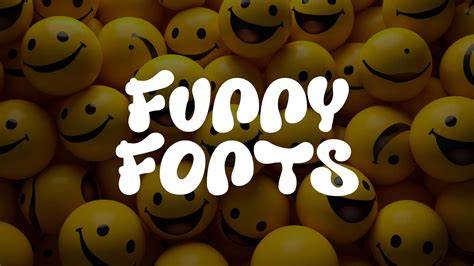
Funfonts: A Style Revolution For 2023
It's 2023, and the world of typography is a different place. Gone are the days when the same old typefaces ruled the web. Now, thanks to a new revolution in fonts, everyone from web designers to casual bloggers have access to a range of exciting and creative typefaces. We're talking about funfonts – a unique style of typeface that has been gaining in popularity over the past few years.
Funfonts are basically fonts that have been designed with a specific purpose in mind – to make text look fun. This could mean bright, colourful fonts, or more unusual shapes and sizes. Funfonts also often feature more playful lettering, such as hand-drawn lettering and script. They are a great way to add a bit of personality to any website or project.
The Benefits of Funfonts
Of course, the main advantage of using funfonts is that they are eye-catching and attractive. They can instantly make a website or project look more interesting and engaging. They can also help to draw attention to important text, or make it easier to read. Funfonts are also great for creating a sense of character and individuality.
Another major benefit of funfonts is that they are often much easier to use than traditional typefaces. They are often easier to read, and they don't take up as much space. This means that they can be used in smaller areas, such as mobile devices, without compromising readability. Plus, because of their unique design, they can often be used to convey a certain mood or tone.
Where to Find Funfonts
The Future of Funfonts
It's clear that funfonts are here to stay. They are a great way to make text more attractive and engaging, and they offer a range of benefits that traditional typefaces can't match. Plus, with the help of online tools, it's easier than ever to create your own custom typefaces. As more and more people discover the advantages of funfonts, it's likely that this style of typeface will continue to gain in popularity.